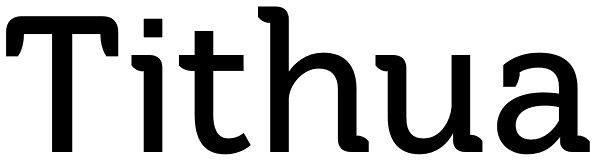
Tithua
Tithua is a modern font with strokes clear and well marked, easy to read and simple design. The curved shape on the slab terminations give a harmonious and pleasant smoothing which removes stiffness and enriches the design. For now comes in five...